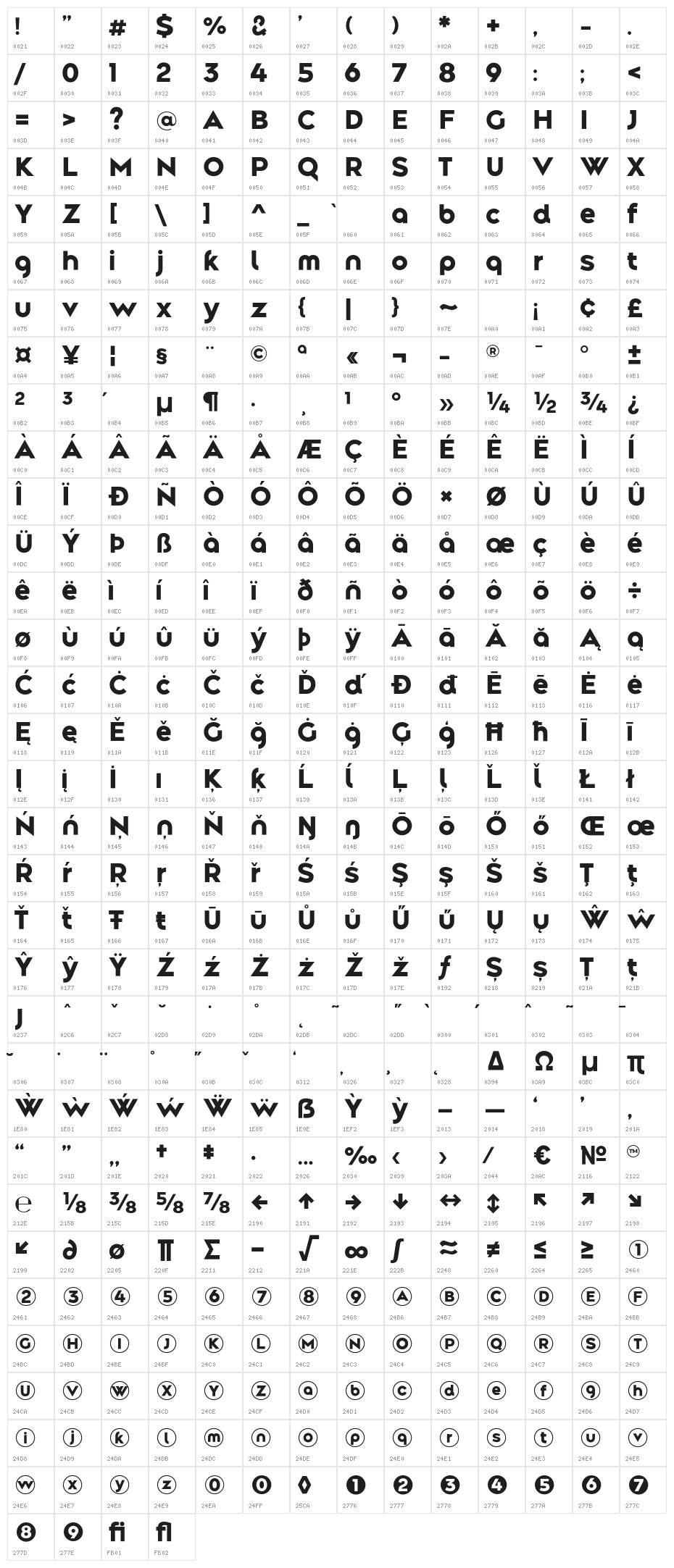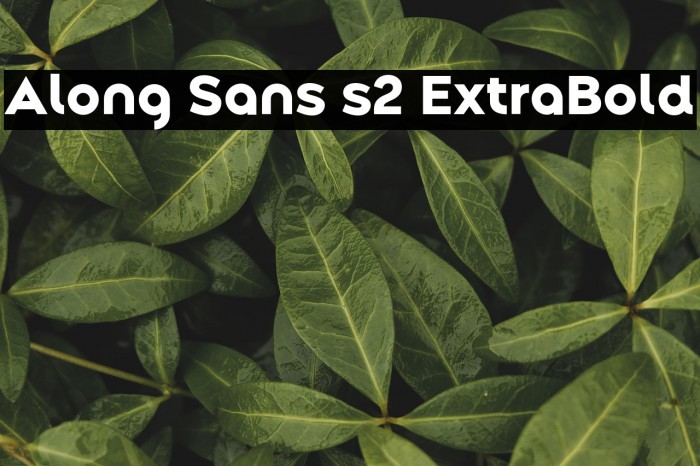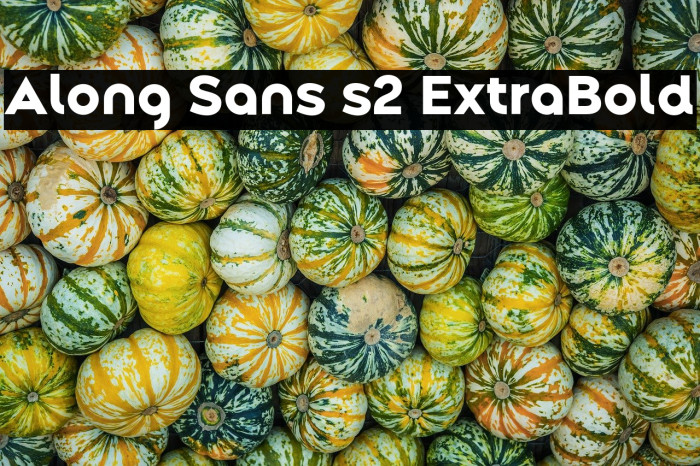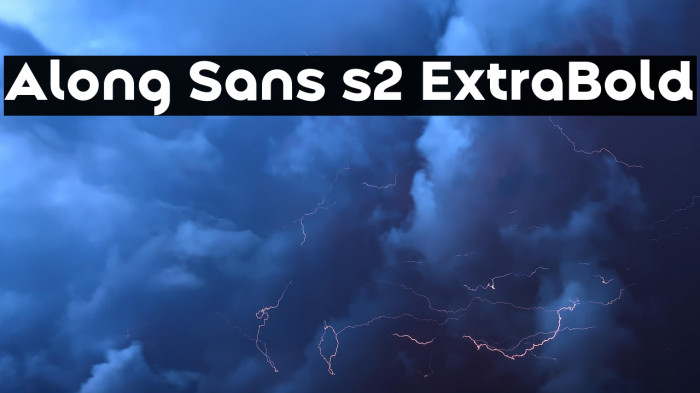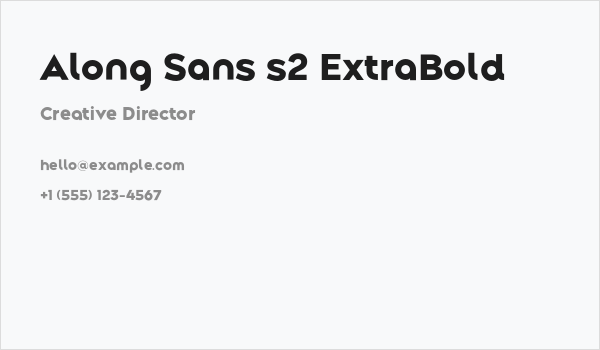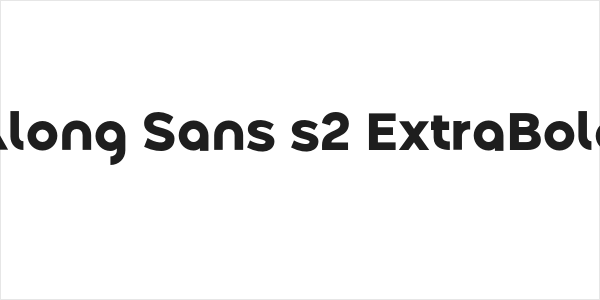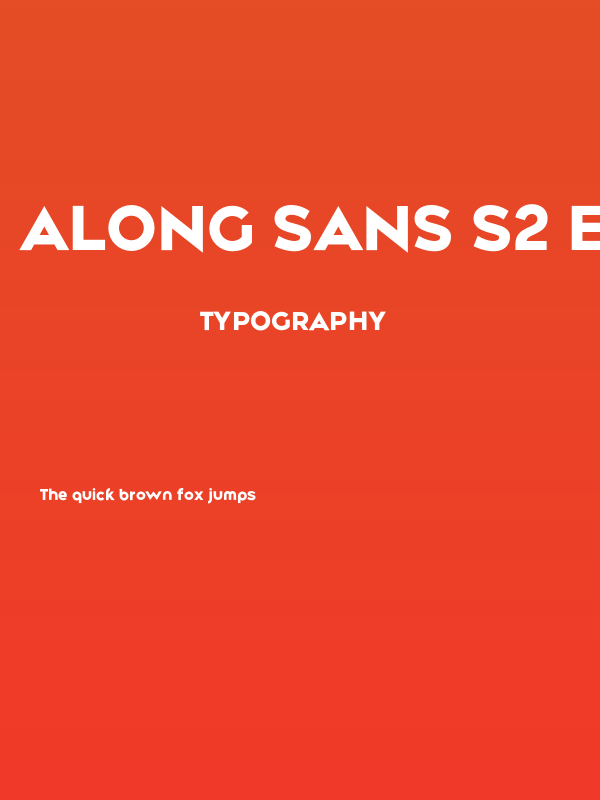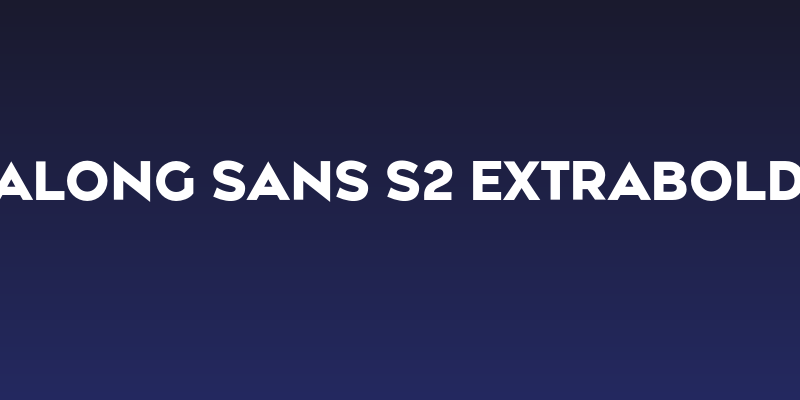
Along Sans s2 ExtraBold Font
Along Sans s2 ExtraBold Description
This typeface features a bold and assertive design, characterized by its thick strokes and geometric shapes. The uppercase letters are particularly striking, with sharp angles and a strong presence, while the lowercase letters maintain a consistent weight and rounded forms. The numerals are robust and clear, ensuring legibility. Special characters are designed with the same boldness, making them stand out effectively. The overall appearance is modern and clean, suitable for making a strong visual impact.